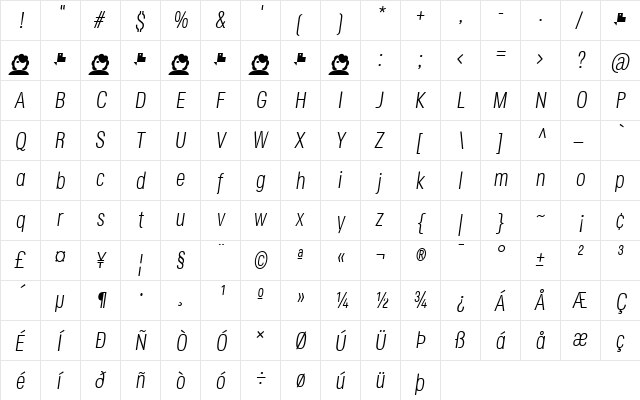
Jane Roe Light Italic
| Foundry | deFharo |
| Designer | Fernando Haro |
Design Context for Jane Roe Typeface
Jane Roe takes a measured approach to typography — its balanced proportions and neutral character make it a reliable workhorse for both digital and print work. The slanted form adds forward momentum and visual energy. Its slender proportions lend an understated elegance to any composition.
Pro Tip: Use Jane Roe for emphasis, pull quotes, and subheadings where its slanted energy can add rhythm to the layout.